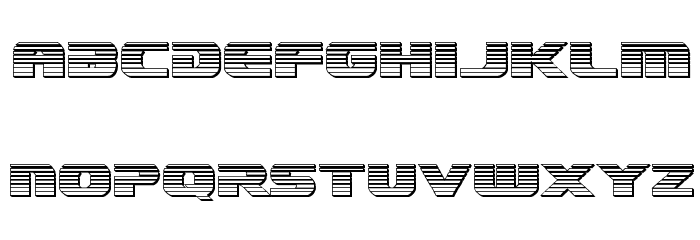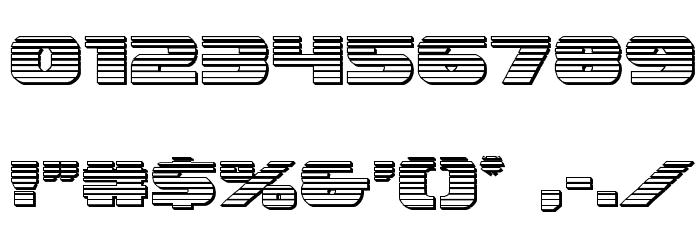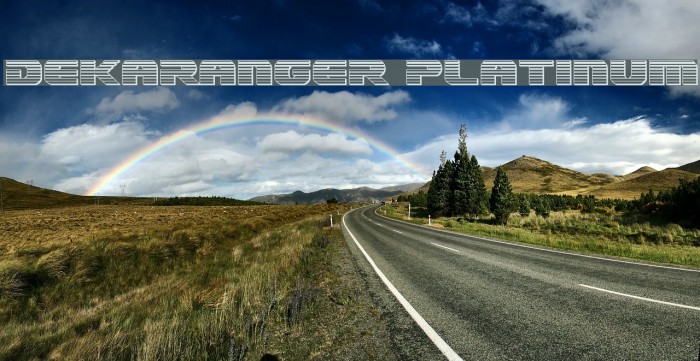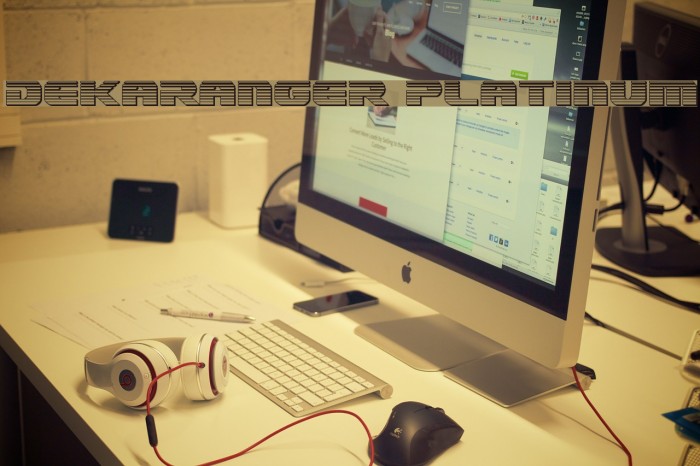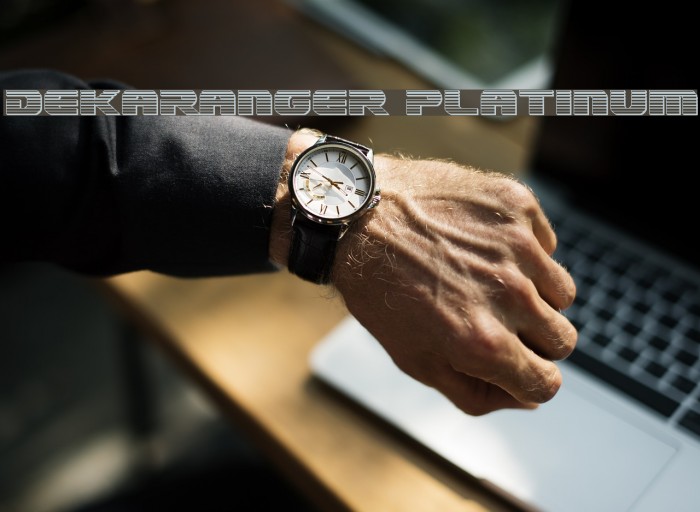
Dekaranger Platinum Font
This font features a futuristic and geometric design with a distinct striped pattern running horizontally across each character. The bold, angular shapes give it a strong, dynamic presence, making it ideal for attention-grabbing designs. The uppercase and lowercase letters maintain a consistent style, with the stripes adding a sense of movement and energy. The numerals and special characters are equally stylized, ensuring a cohesive look across all text elements. The font's unique aesthetic makes it suitable for projects that require a modern and edgy feel.
A futuristic, striped font with bold, geometric shapes.
- Proposed Projects: Ideal for sci-fi themed posters, video game titles, tech branding, and futuristic event flyers.
- Overall Style: Futuristic, Modern